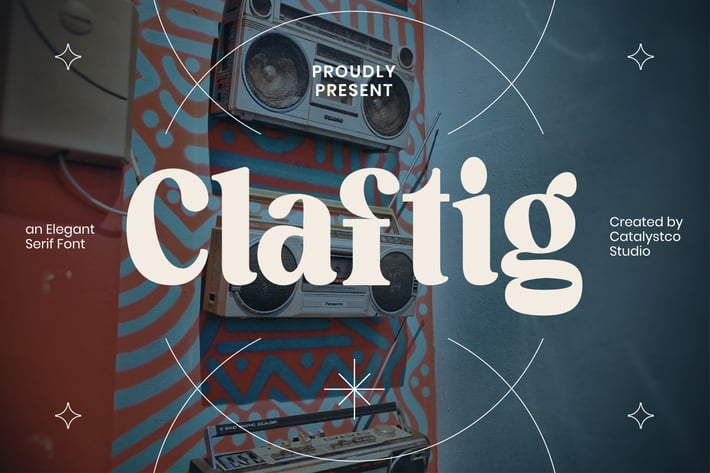
Claftig Elegant Serif Font
CLaftig is an elegant serif display font that blends refined curves with expressive, high-contrast shapes. Its sculpted serifs and distinctive terminals create a sophisticated character that stands out in modern editorial layouts, branding, and high-impact headlines. Designed with balanced proportions and smooth contours, the font delivers both readability and visual presence. Perfect for designers seeking a stylish serif display with a contemporary artistic feel.
Relevance and Use Cases is perfect for editorial layouts, magazine headlines, modern branding projects, elegant product packaging, creative posters, logo design, digital visuals, and any project that requires a stylish serif with strong visual character.